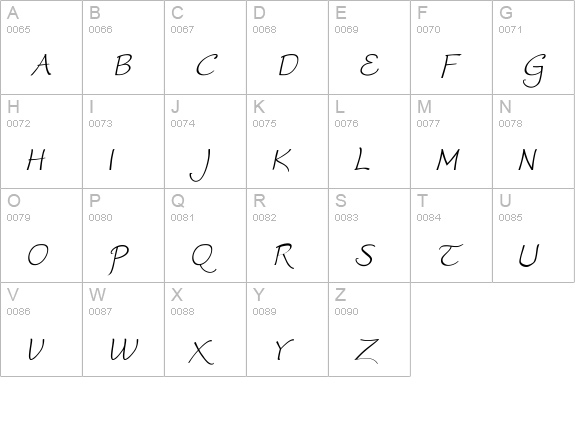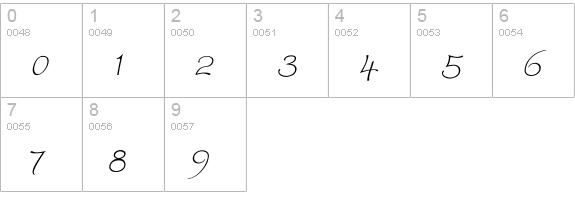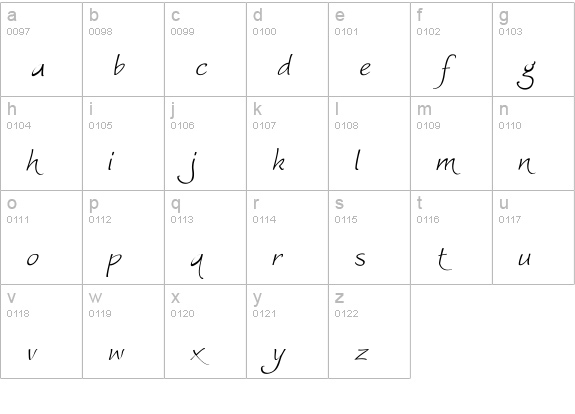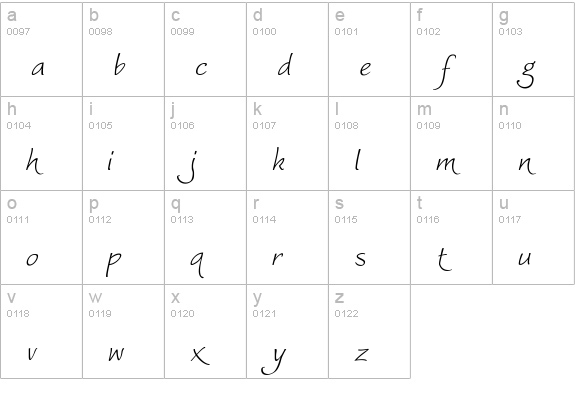
Worstveld Sling Extra Oblique is a distinctive, italic variant in the Worstveld typeface family \xE2\x80\x94 well suited to design and typography projects.